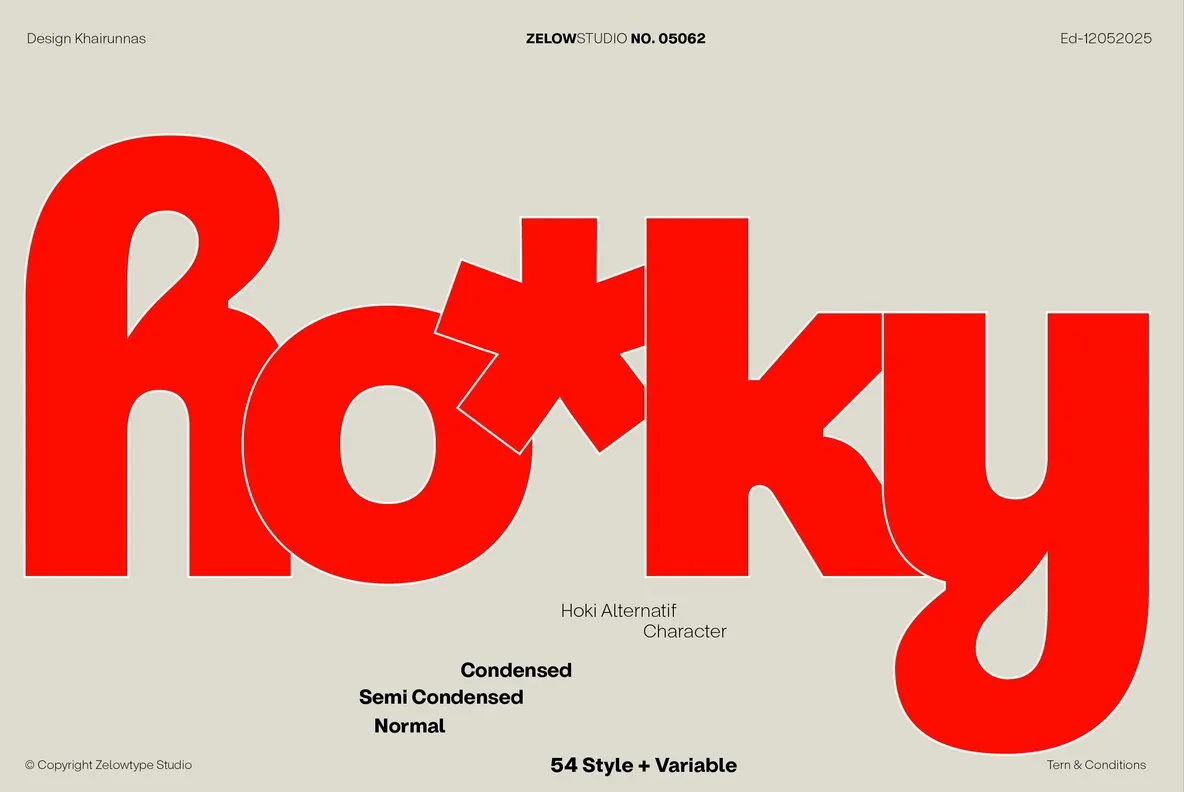
ZT Hoky: Modern Grotesk Typeface With Impactful Versatility
ZT Hoky stands out as a modern grotesk typeface designed for projects that require visual strength and clarity. Drawing influence from contemporary poster design, striking editorial layouts, and confident branding, each character is constructed with a balance of dense structure and rhythmic geometry. The typeface’s substantial presence ensures legibility even at a distance, making it an apt choice for creative professionals seeking a distinctive typographic statement.
Its typographic system is built around four primary proportions—Condensed, Semi Condensed, Normal, and Italic—catering to a broad spectrum of design requirements. These width variations introduce flexibility for constructing tight poster compositions, establishing assertive typographic hierarchies, and delivering headlines that capture attention. With high visual energy, ZT Hoky is suited for editorial features, museum identities, packaging, and any project where typography commands focus.
Features:
54 styles, including italics
Variable font functionality
526 glyphs with 8 unique alternate characters
Condensed, semi condensed, and normal widths
9 font weights: thin, extra light, light, regular, medium, semi-bold, bold, extra bold, and black
ZT Hoky offers designers a resourceful approach to building striking visual campaigns and cohesive brand systems. Its adaptability and commanding aesthetic make it a modern choice for any project where typography leads the message.